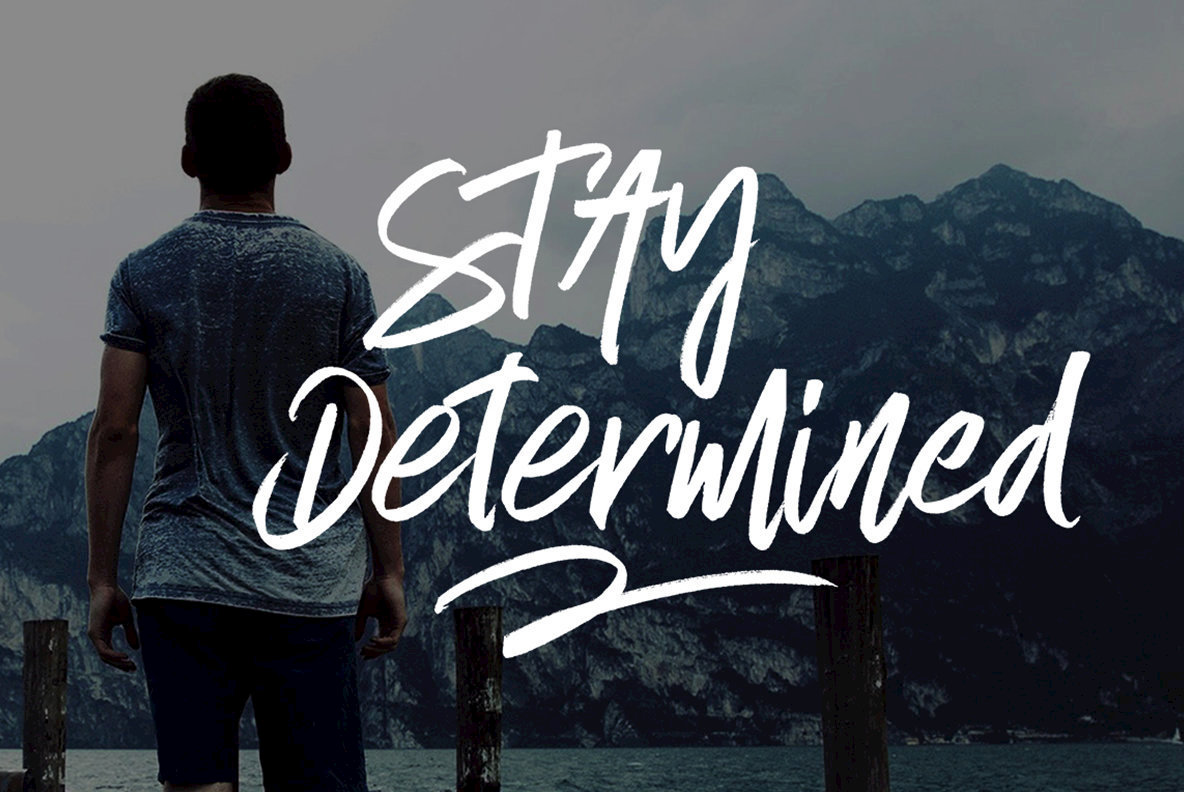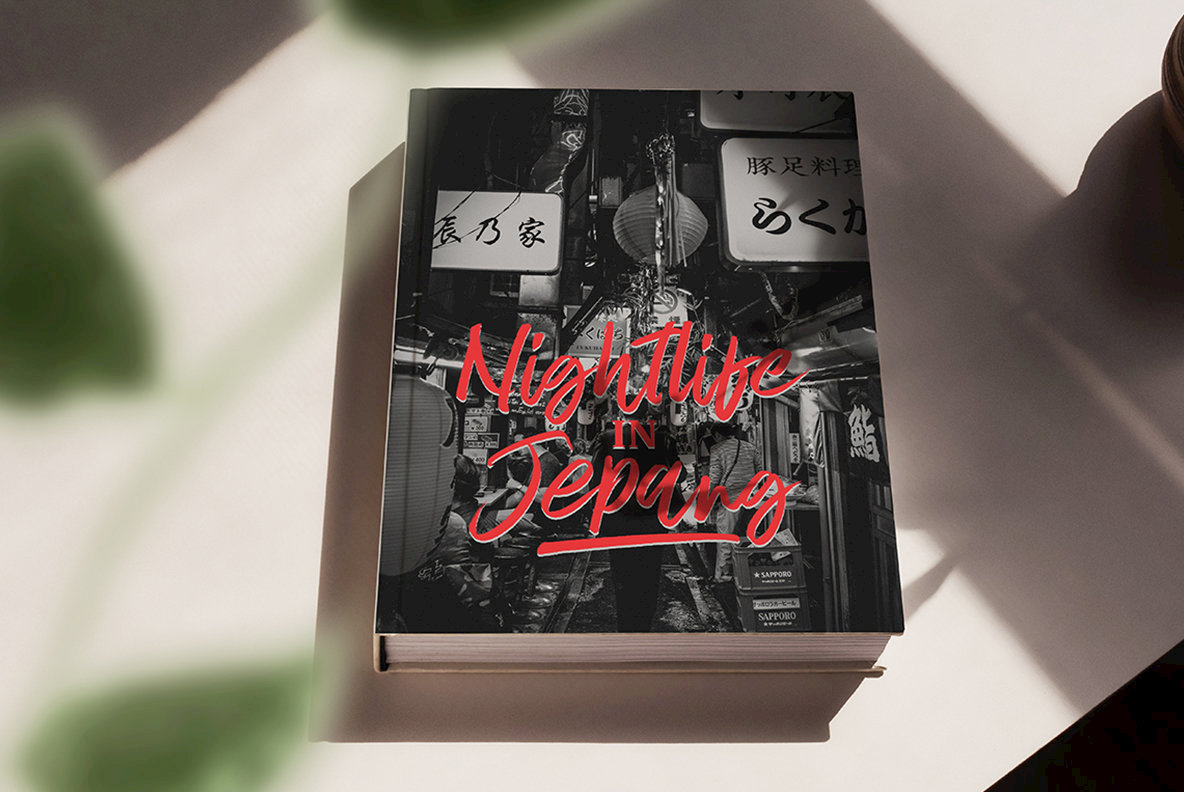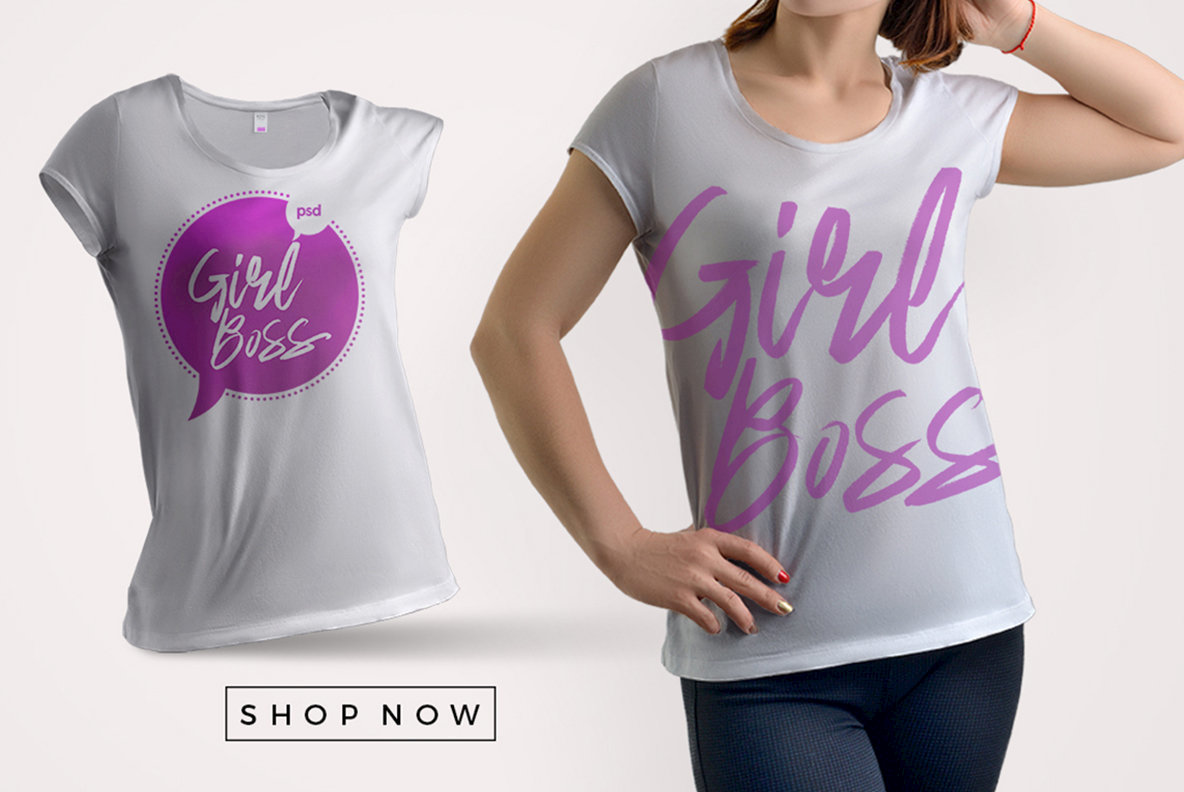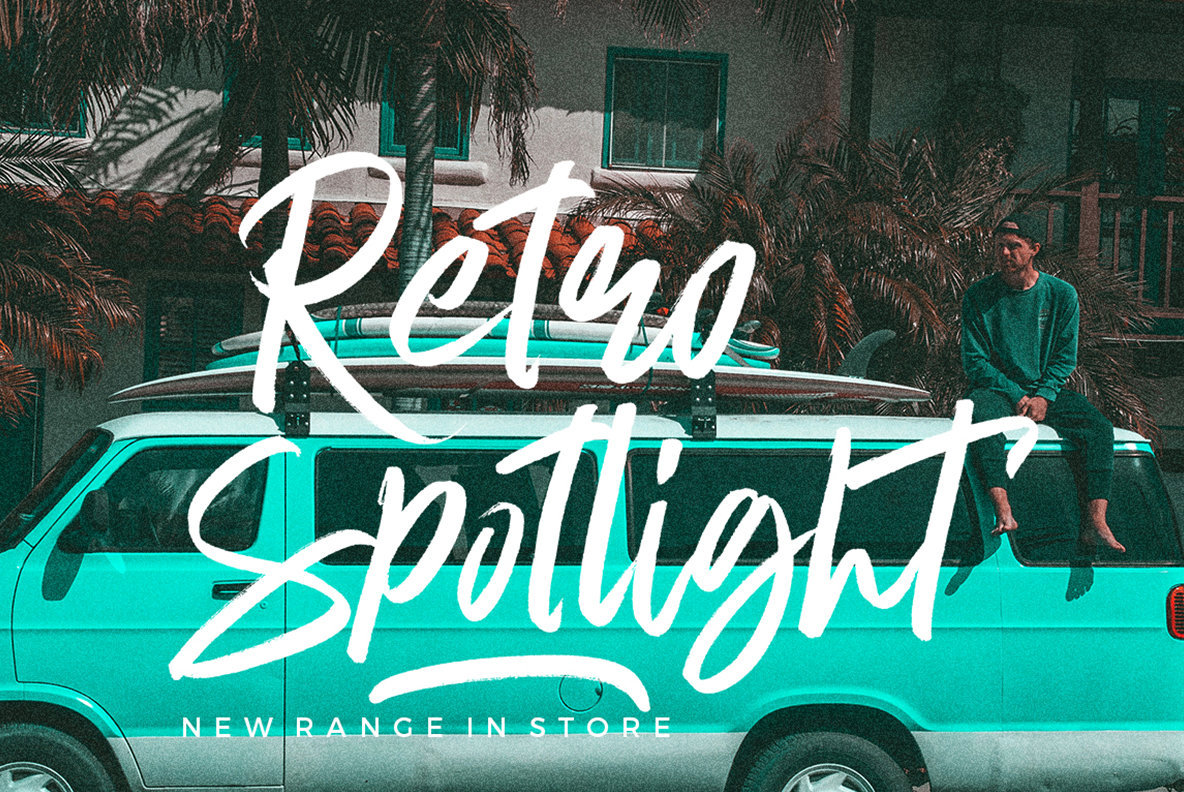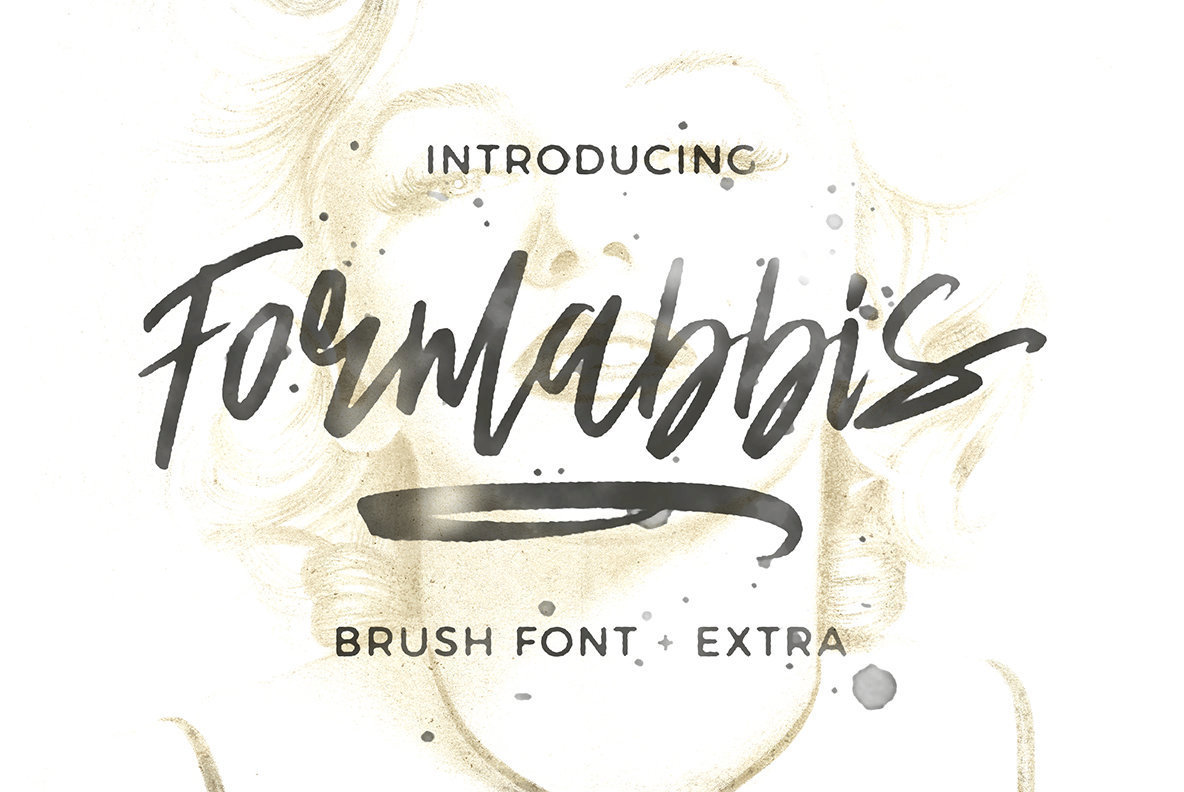
Formabbis Font Family
Formabbis is a set of 2 handmade pen markers, designed to be combined perfectly and allows you to create amazing handwriting quickly and easily. Also includes a bonus swash set, ideal for giving your text the final touch of tactics!
The Formabbis comes with upper and lower case characters, large sets of glyph punctuation marks, numbers, and supports international languages. Alternative styles for some lowercase key characters are also available.